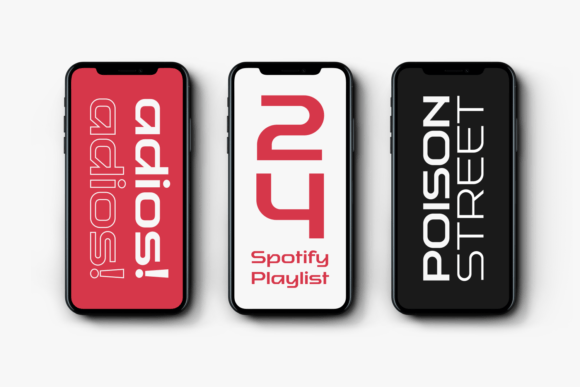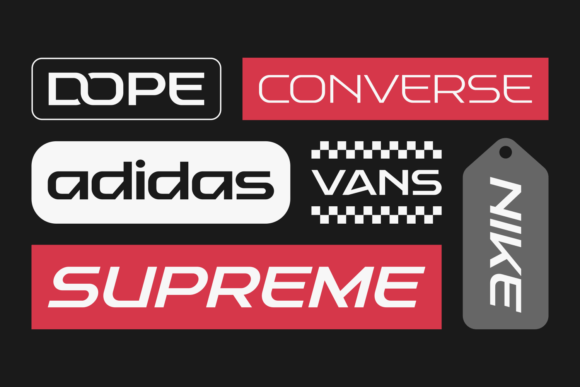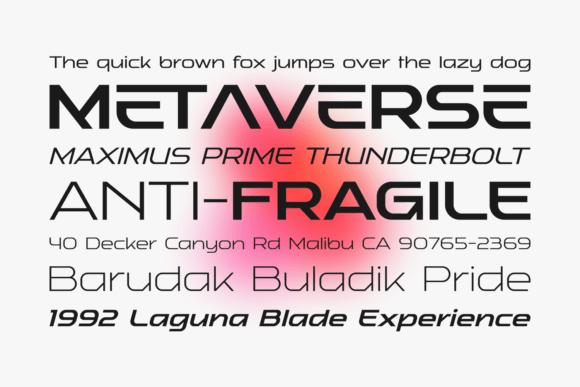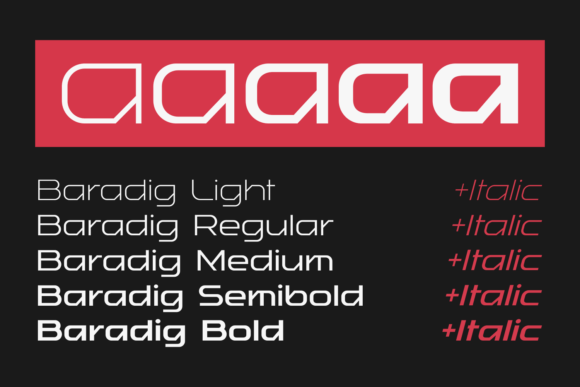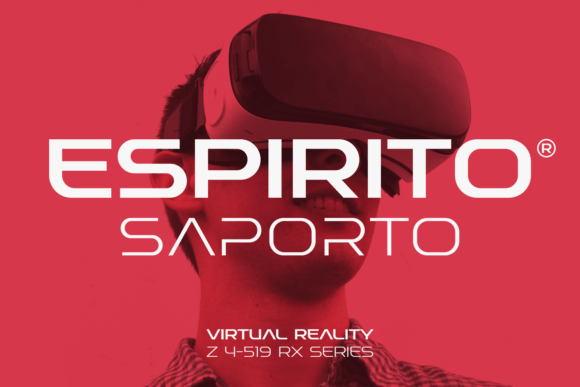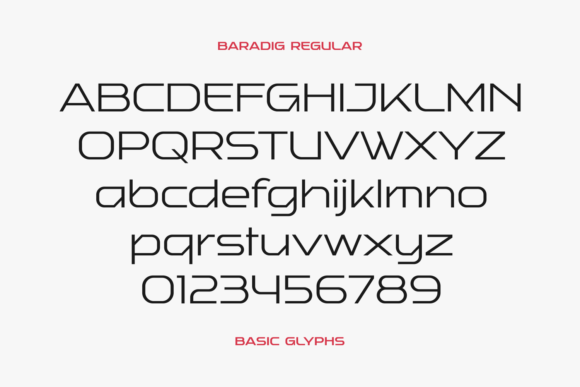
Introducing Baradig Font: Elevate Your Creations with a Versatile Grotesque Sans Serif
In the world of typography, fonts play a crucial role in conveying messages, expressing emotions, and creating visual identities. For designers, crafters, and anyone looking to add a touch of personality to their projects, the right font can make all the difference. This is where Baradig Font comes into play – a trendy, stylish, and versatile grotesque sans serif font family designed to elevate each of your creations.
What is Baradig Font?
Baradig Font is a modern, grotesque sans serif font family that has been crafted to meet the demands of contemporary design. Its clean lines, even stroke widths, and geometric shapes make it a perfect choice for a wide range of applications, from branding and advertising to digital media and crafting projects.
Key Features of Baradig Font
- Versatility: Baradig Font is designed to be versatile, making it suitable for various design projects, including logos, headings, and body text.
- Grotesque Style: The font’s grotesque style gives it a unique and trendy look, perfect for designers looking to add a touch of modernity to their work.
- Sans Serif: The sans serif design ensures that the font remains clean and legible, even at smaller sizes.
- Trendy and Stylish: Baradig Font’s trendy and stylish appearance makes it an excellent choice for designers who want to create visually appealing designs.
Use Cases for Baradig Font
Baradig Font’s versatility makes it suitable for a wide range of applications, including:
- Branding: Use Baradig Font to create unique and memorable logos that stand out from the crowd.
- Advertising: The font’s trendy and stylish appearance makes it perfect for advertising campaigns, including billboards, posters, and digital ads.
- Digital Media: Baradig Font is ideal for digital media, including social media graphics, website headers, and email newsletters.
- Crafting Projects: Crafters can use Baradig Font to add a personal touch to their projects, including handmade cards, scrapbooking, and DIY crafts.
Benefits of Using Baradig Font
By incorporating Baradig Font into your design projects, you can:
- Enhance Readability: The font’s clean design and even stroke widths ensure that your text remains legible, even at smaller sizes.
- Add Personality: Baradig Font’s trendy and stylish appearance allows you to add a touch of personality to your designs.
- Increase Versatility: The font’s versatility makes it suitable for a wide range of applications, saving you time and effort in finding the right font for each project.
Baradig Font is a versatile grotesque sans serif font family that offers a unique blend of style, trendiness, and versatility. Whether you’re a designer, crafter, or simply looking to add a touch of personality to your projects, Baradig Font is an excellent choice. With its clean design, even stroke widths, and geometric shapes, this font is sure to elevate each of your creations and help you stand out from the crowd.